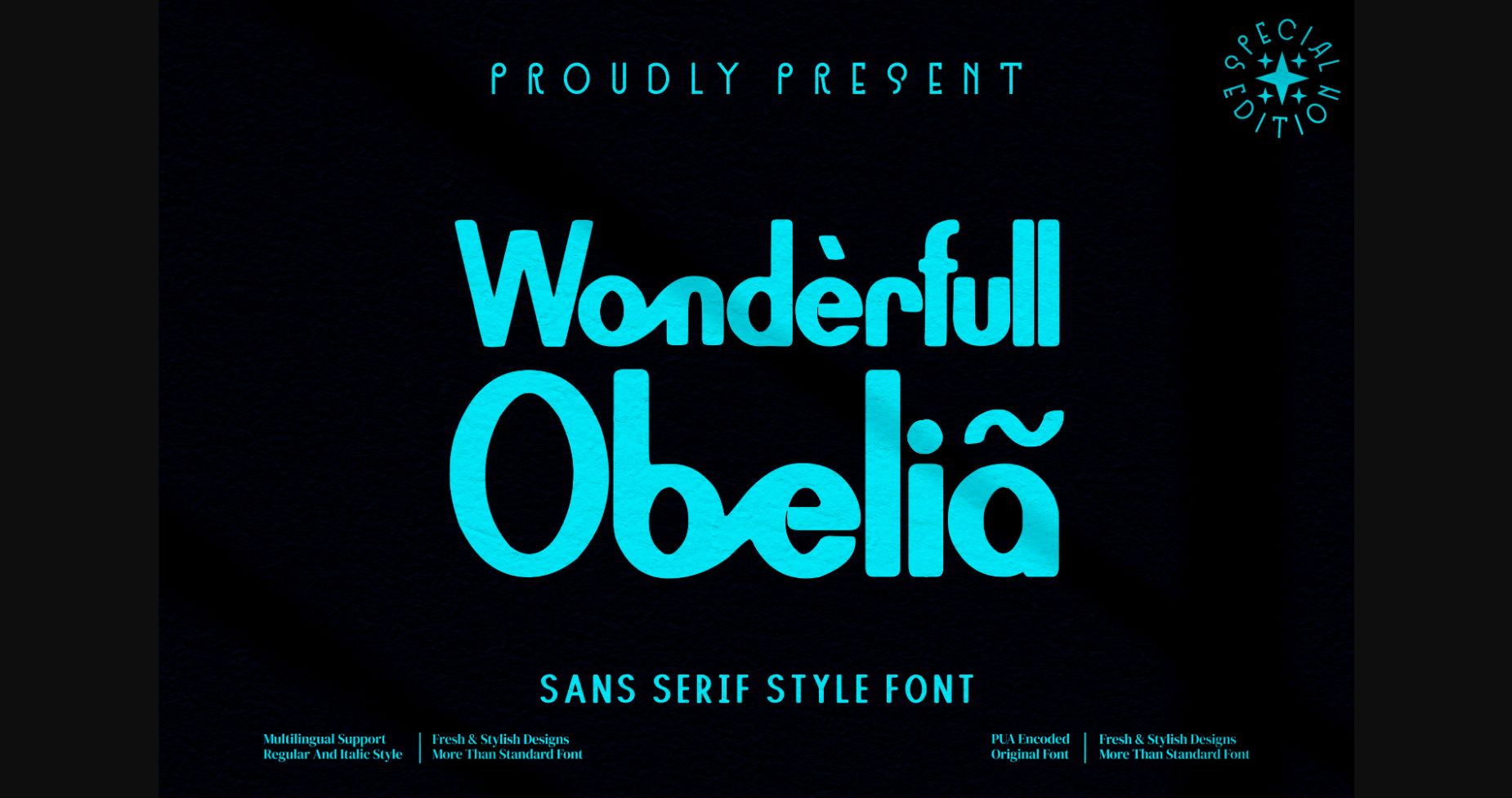
About Wonderfull Obelia Font
Wonderfull Obelia is a vintage styled and delicate sans serif font. It is PUA encoded which means you can access all glyphs and swashes with ease!